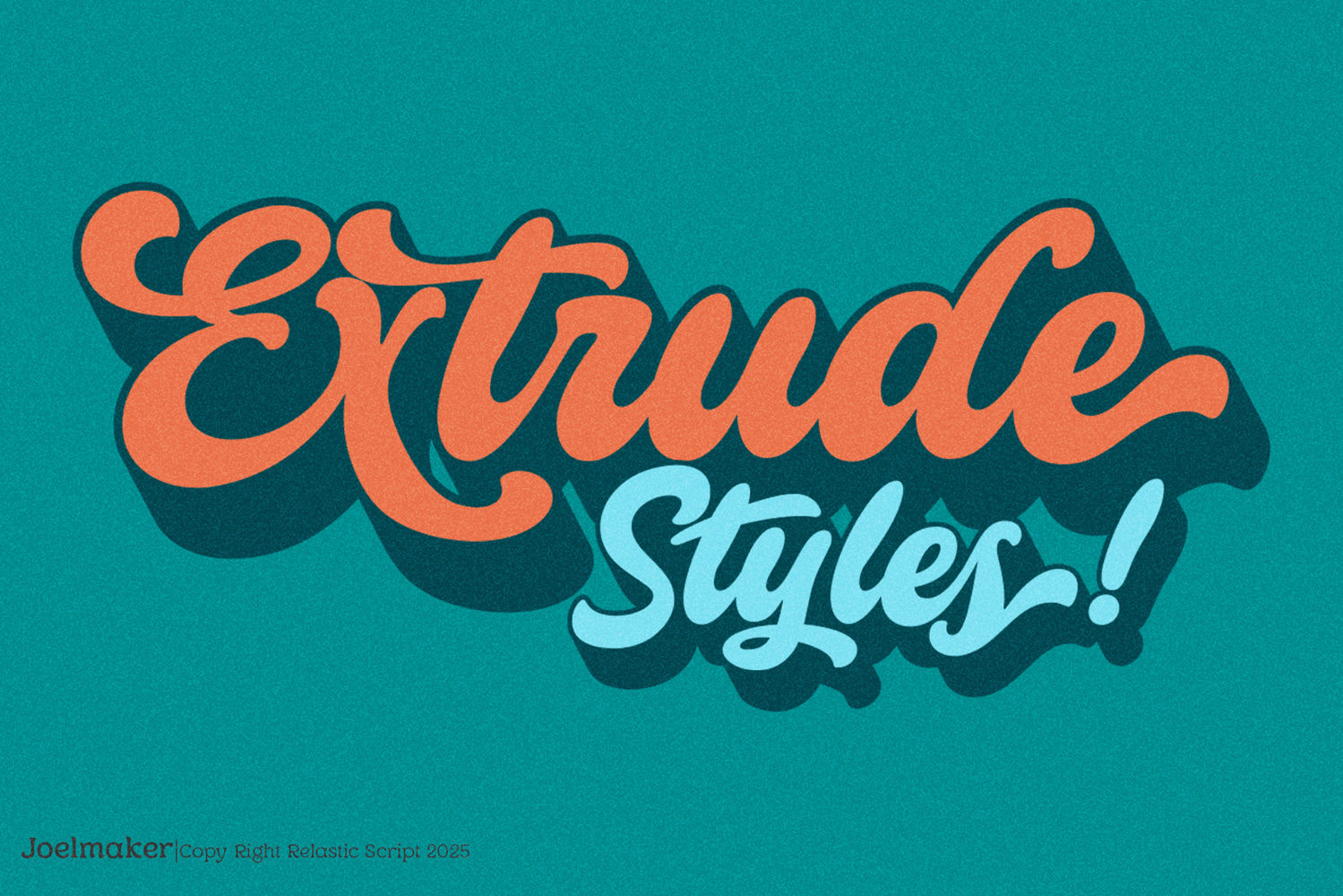
Relastic Script
Relastic Script and Relastic Extrude are two complementary typefaces designed to elevate modern branding and digital design projects. Together, they offer a dynamic fusion of elegance and boldness, enhanced by unique ligatures and discretionary ligatures that add a touch of personality to any composition.
Relastic Extrude, on the other hand, introduces a bold, three-dimensional effect to the design. This extruded style adds depth and emphasis, making it perfect for headlines, logos, and posters that aim to capture attention. The geometric, angular design with consistent stroke widths ensures a strong visual impact, while the extruded effect gives the text a modern, dynamic feel.
When combined, Relastic Script and Relastic Extrude create a harmonious contrast between elegance and strength. The flowing script pairs beautifully with the bold extruded letters, allowing designers to craft compositions that are both stylish and impactful. The inclusion of unique ligatures and discretionary ligatures further enhances the versatility of these fonts, enabling designers to customize and refine their typography to suit various design needs.